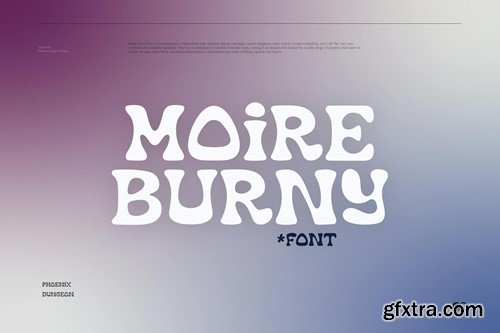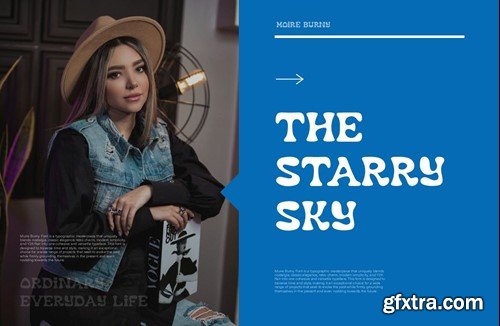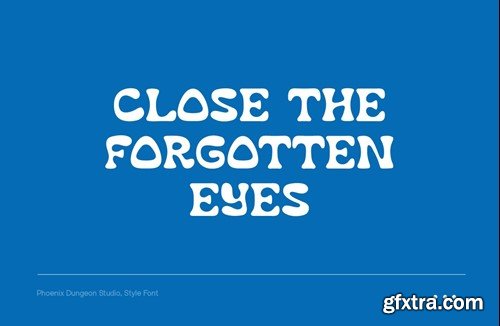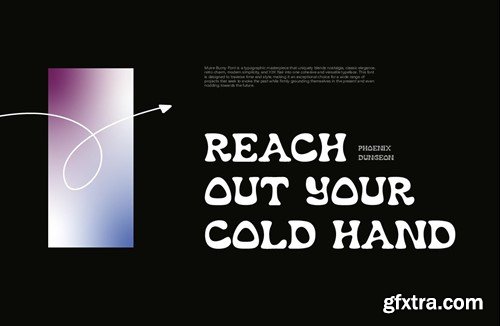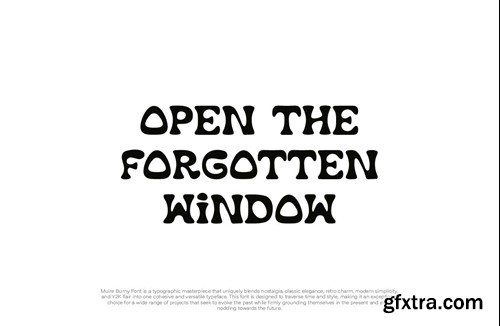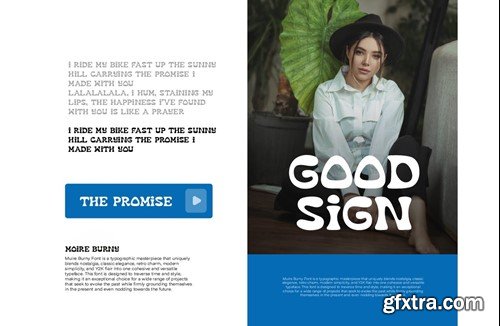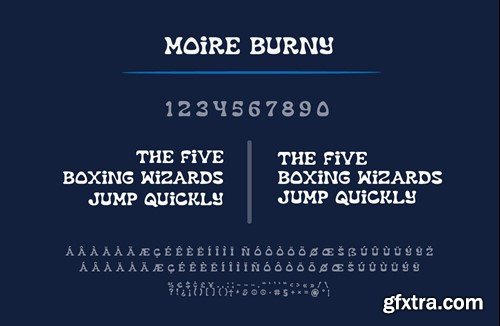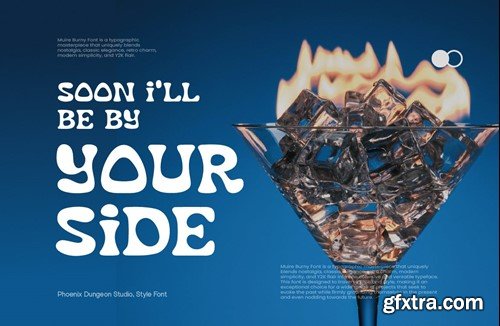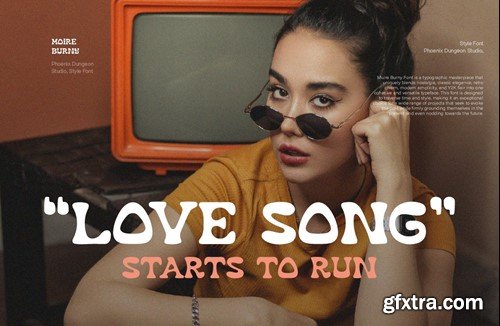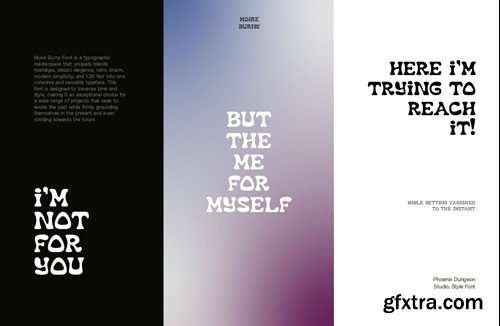
Moire Burny Font
Muire Burny Font is a typographic masterpiece that uniquely blends nostalgia, classic elegance, retro charm, modern simplicity, and Y2K flair into one cohesive and versatile typeface. This font is designed to traverse time and style, making it an exceptional choice for a wide range of projects that seek to evoke the past while firmly grounding themselves in the present and even nodding towards the future. What’s in the package : Thank you